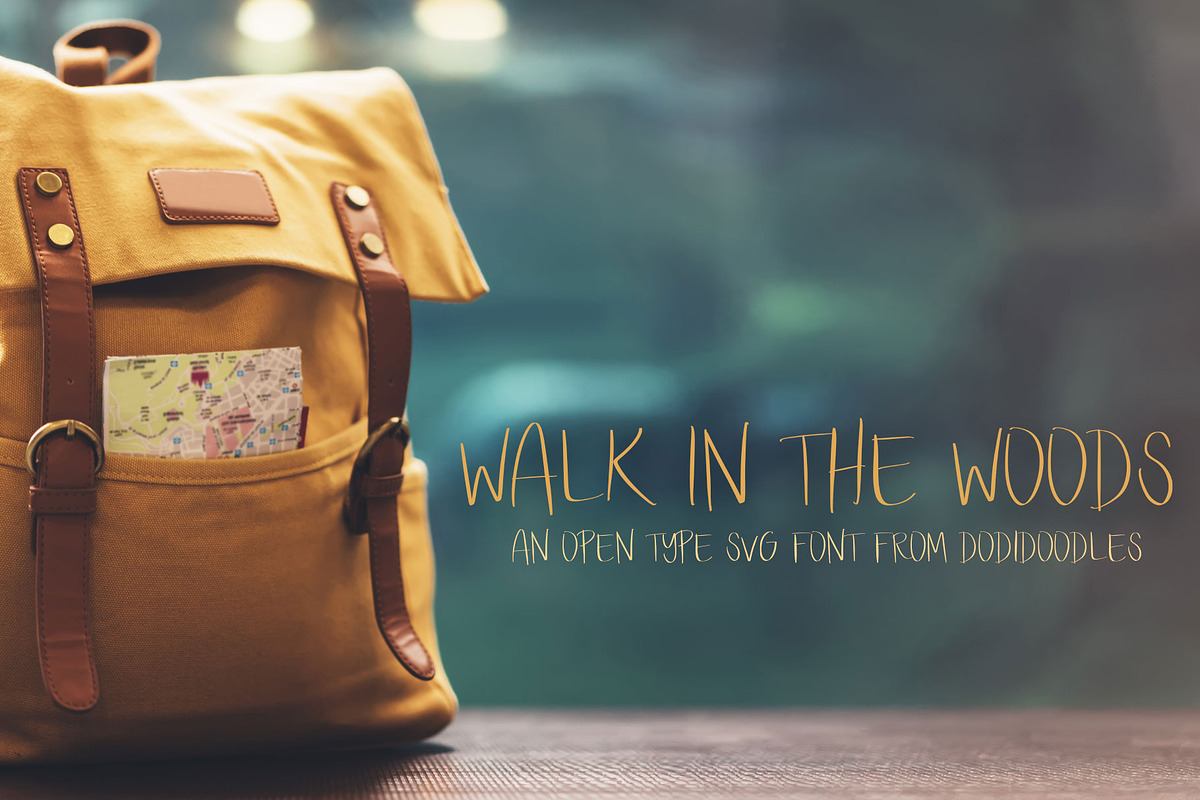
Walk in the Woods Open Type SVG Free Download
Walk in the Woods Open Type SVG Font Free Download
You must purchase this font for commercial use. However, you can download Walk in the Woods Open Type SVG Font Free Download for testing purposes. Walk in the Woods is a unique, nature-inspired OpenType SVG font that brings a whimsical and organic touch to your designs. With its earthy, hand-drawn letterforms and vibrant colors, this font is perfect for projects related to the outdoors, nature brands, event invitations, and anything that requires a creative, rustic flair.
The OpenType SVG format allows you to retain the font's vibrant texture, giving your typography a bold, artistic look with a natural, hand-crafted feel. Whether you're working on an outdoor adventure brand, designing a nature-themed event poster, or crafting fun branding for a creative project, this font will infuse your work with personality and charm.